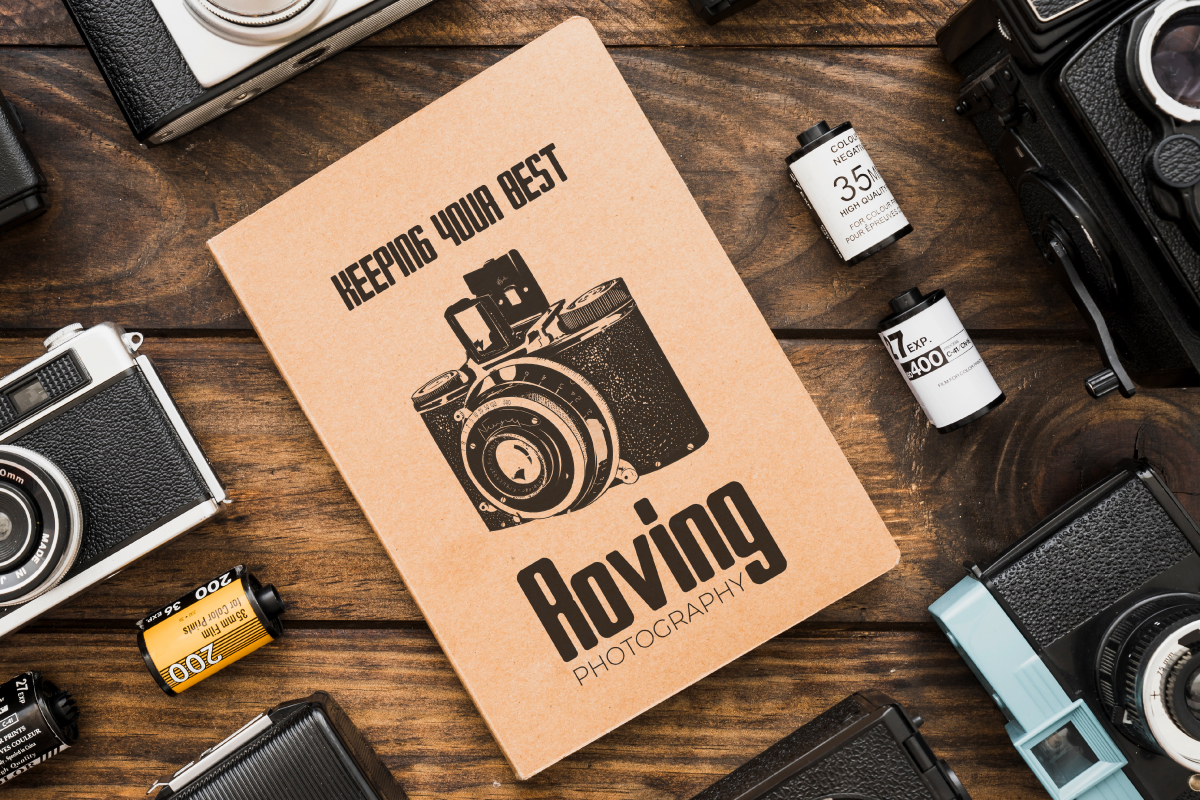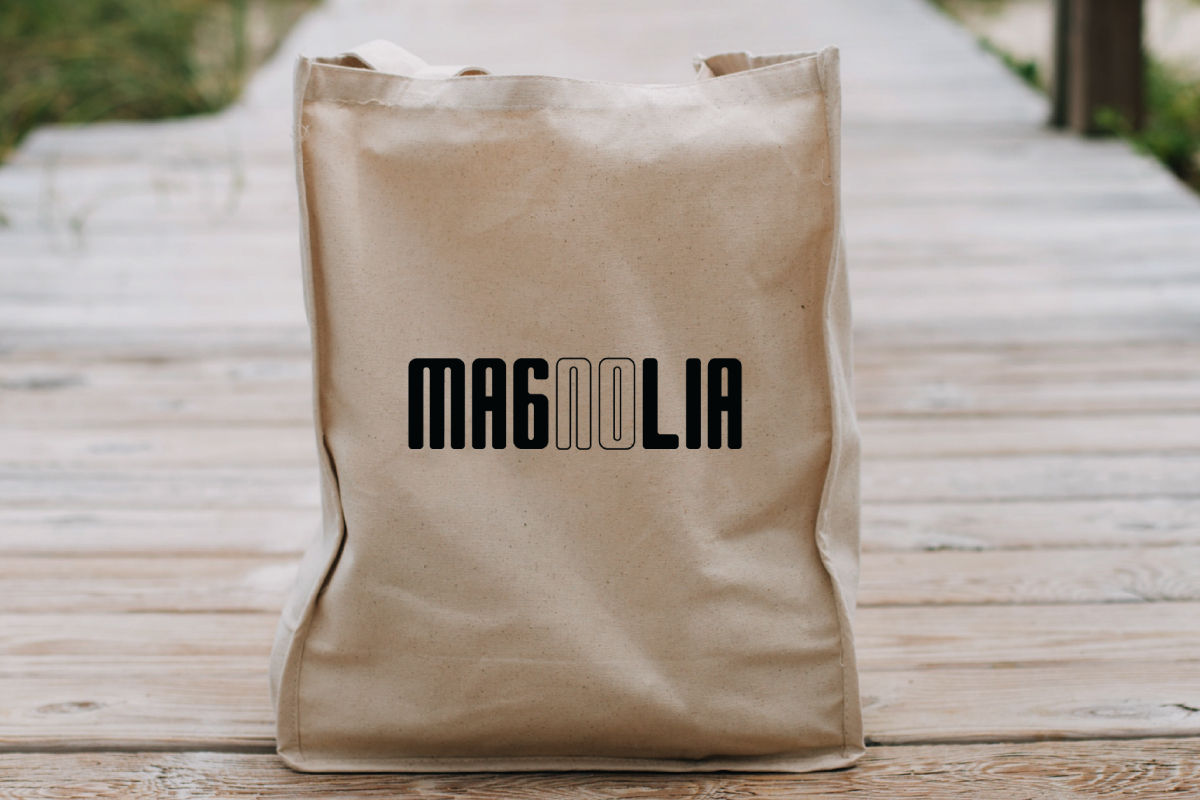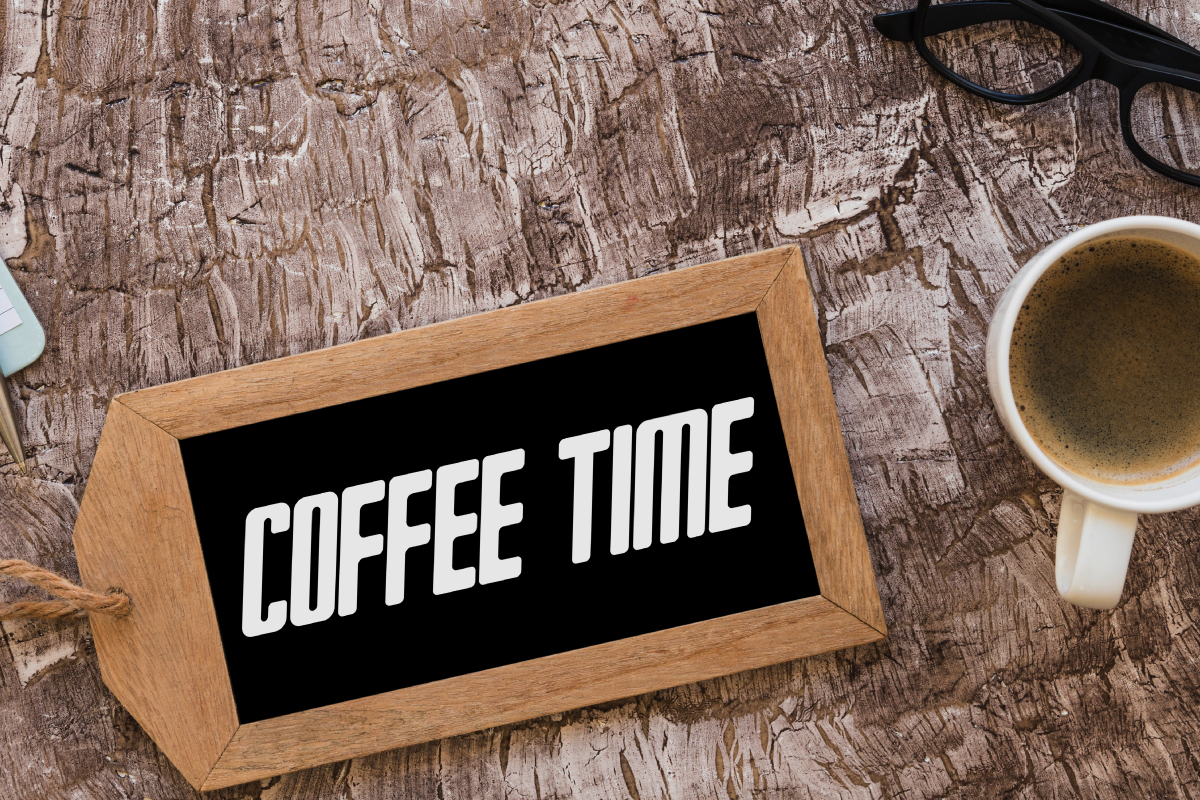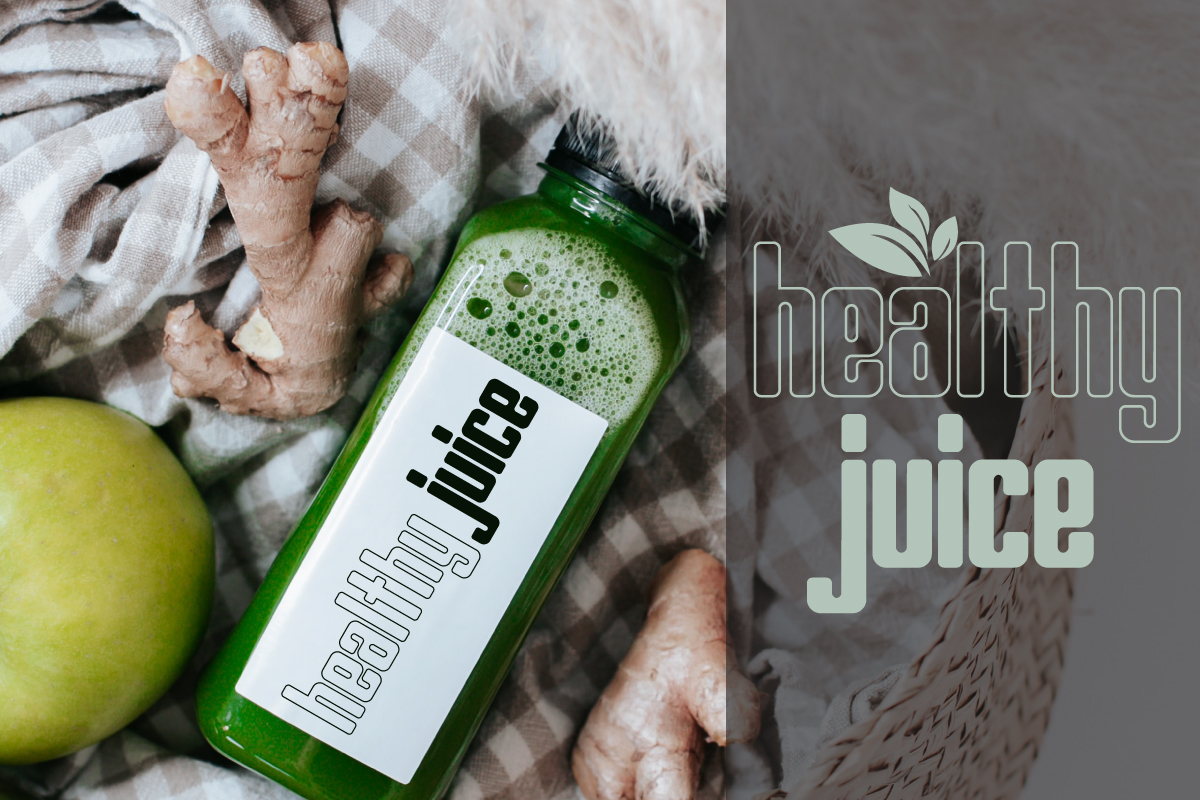
Panoramatic Font
Panoramatic Display Font
This font is designed by RaisProject team in Indonesia. The font is great for any your projects including :brandings, advertising, magazine, signage, invitation, stationery, social media posts, label, or and any projects that need unique minimal style. Almost all industries are suitable for this font is Finance, fintech, Startup, Automotive, Apps, Cosmetic, Beauty, Technology, Game, Magazine, Music, Sport etc